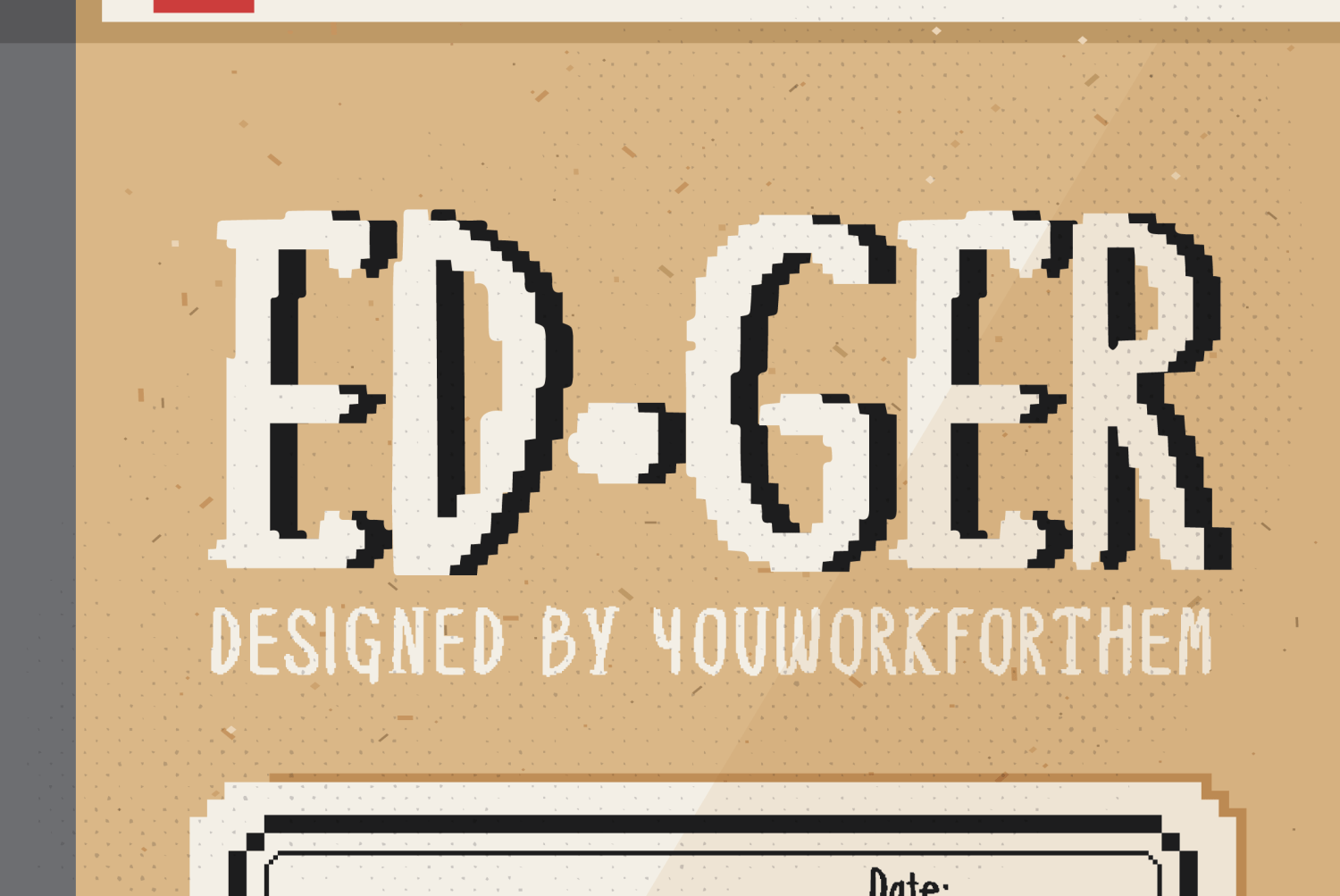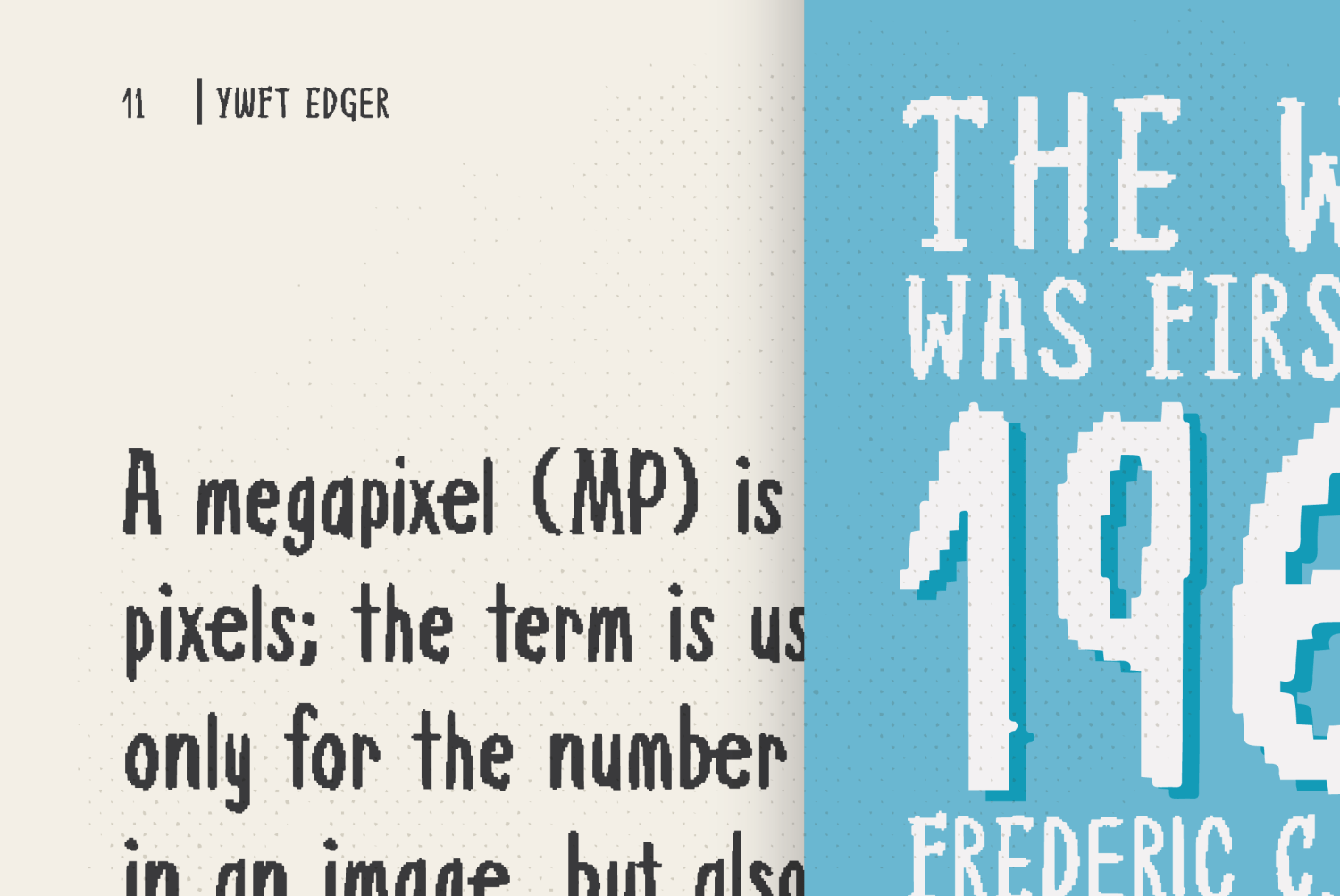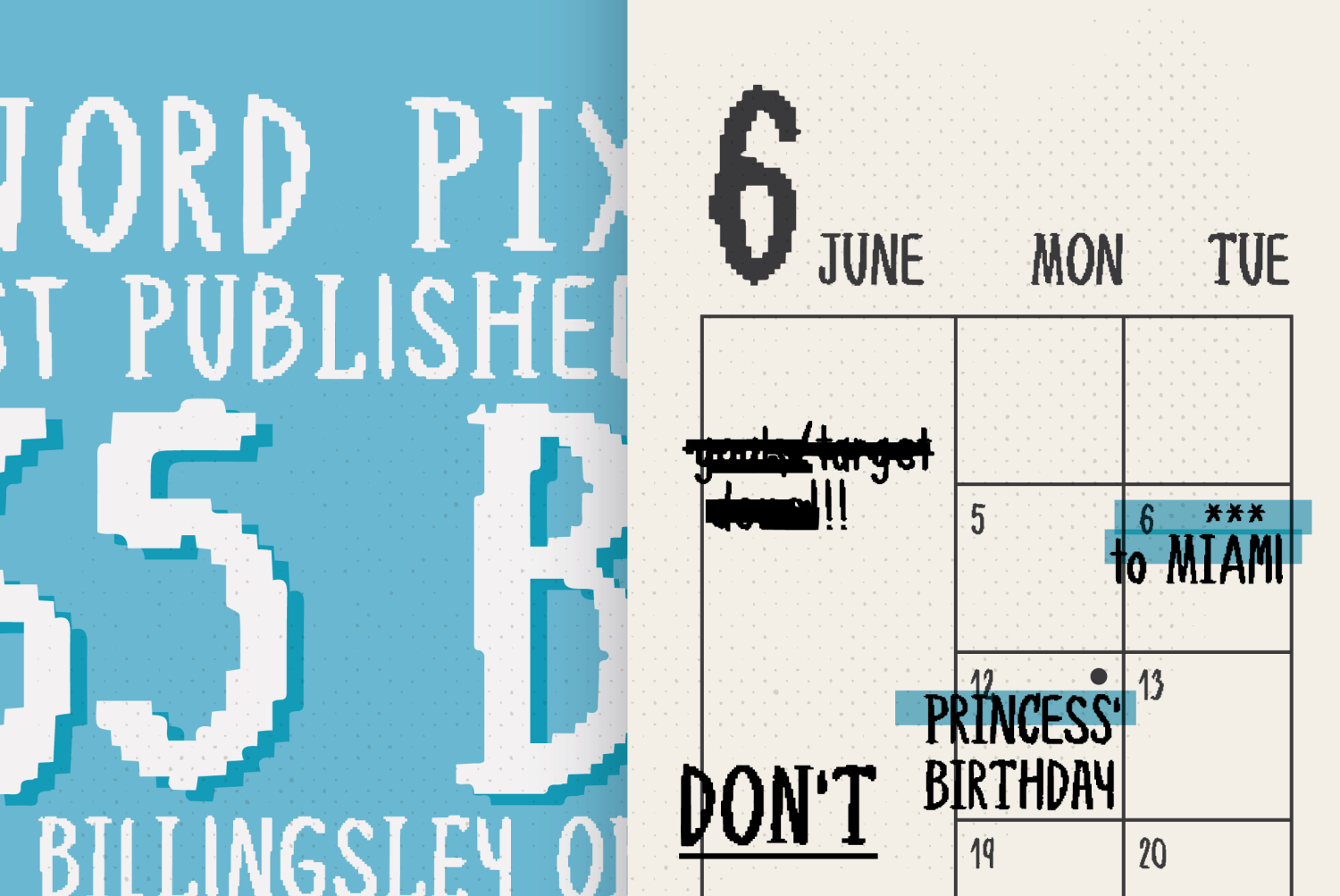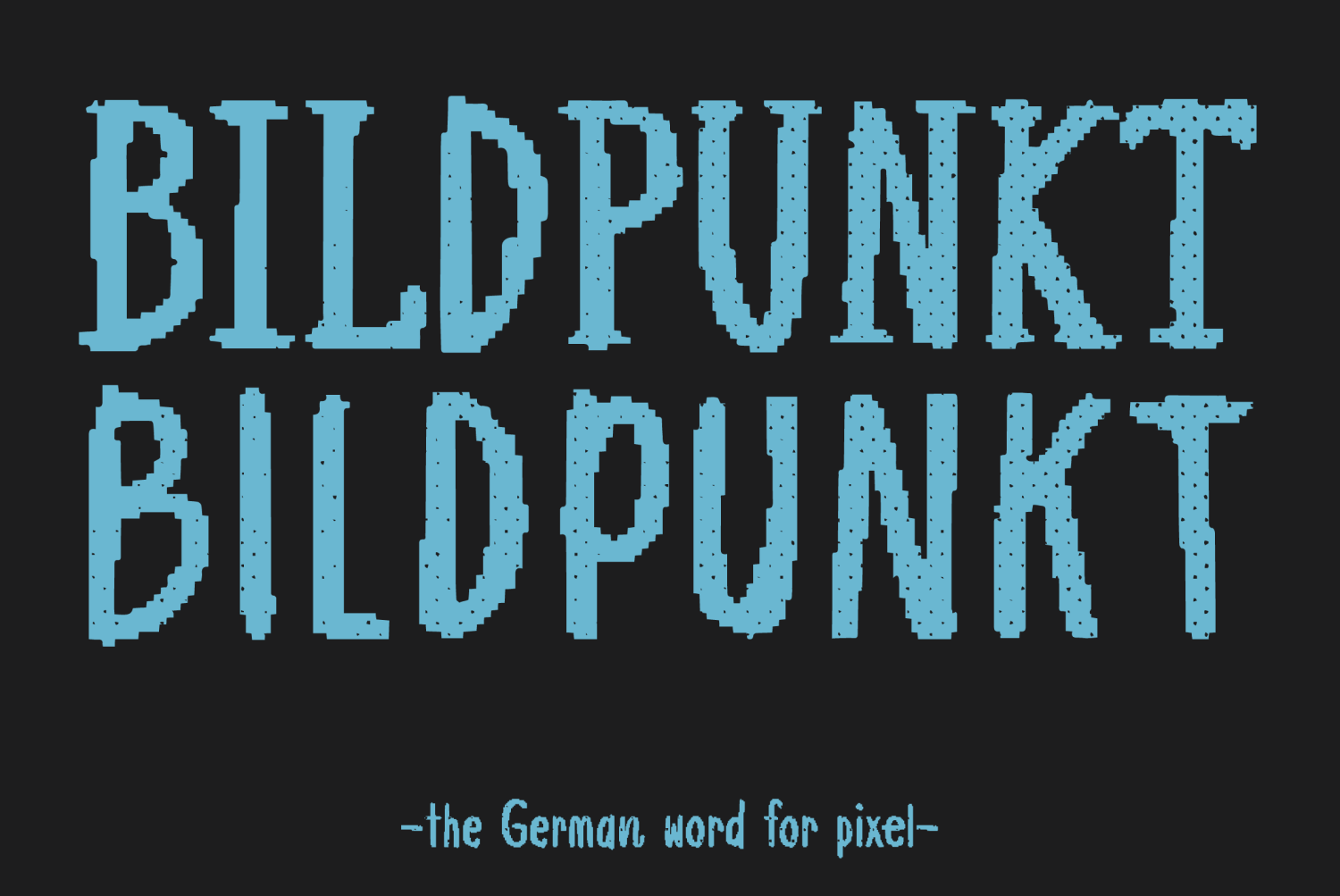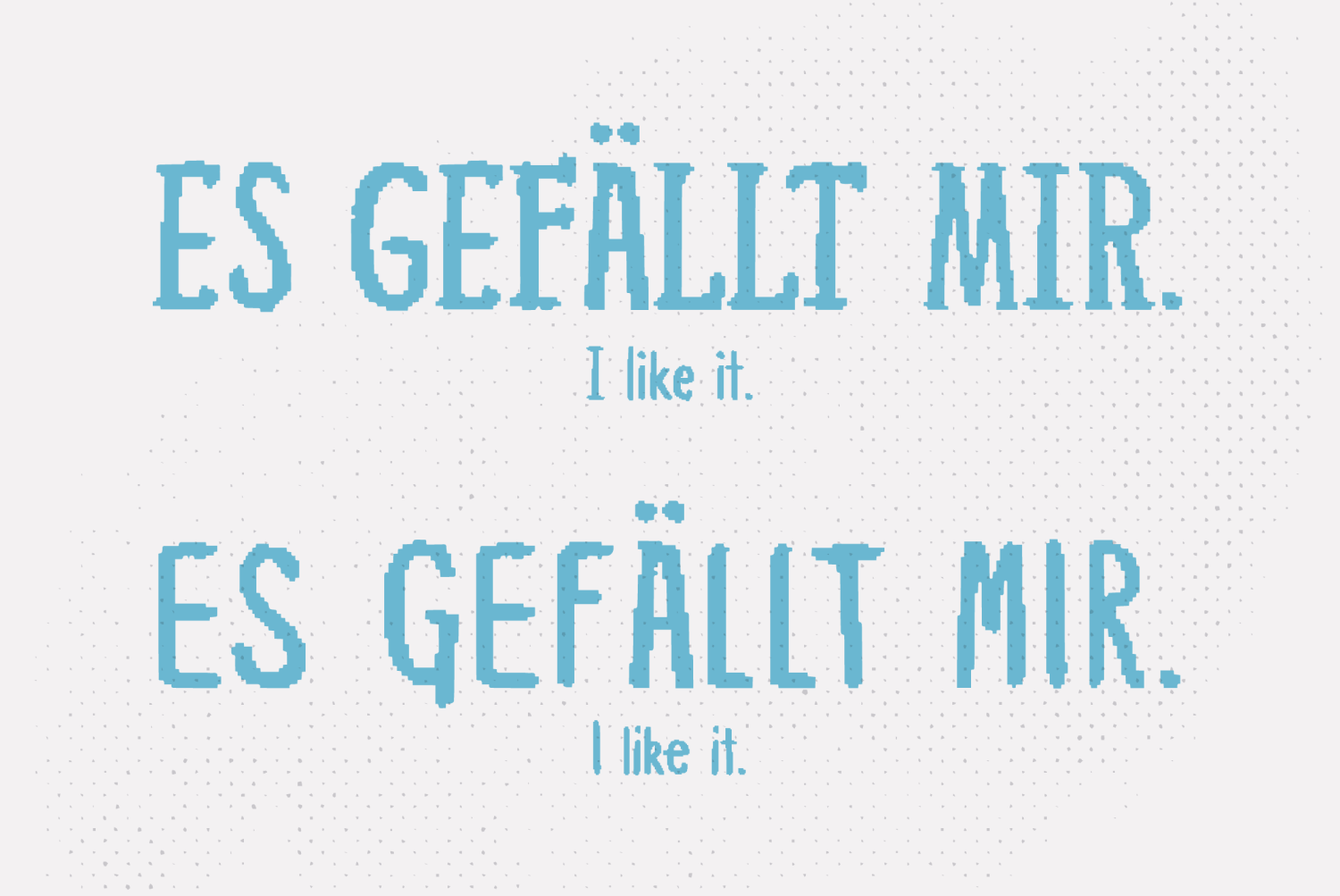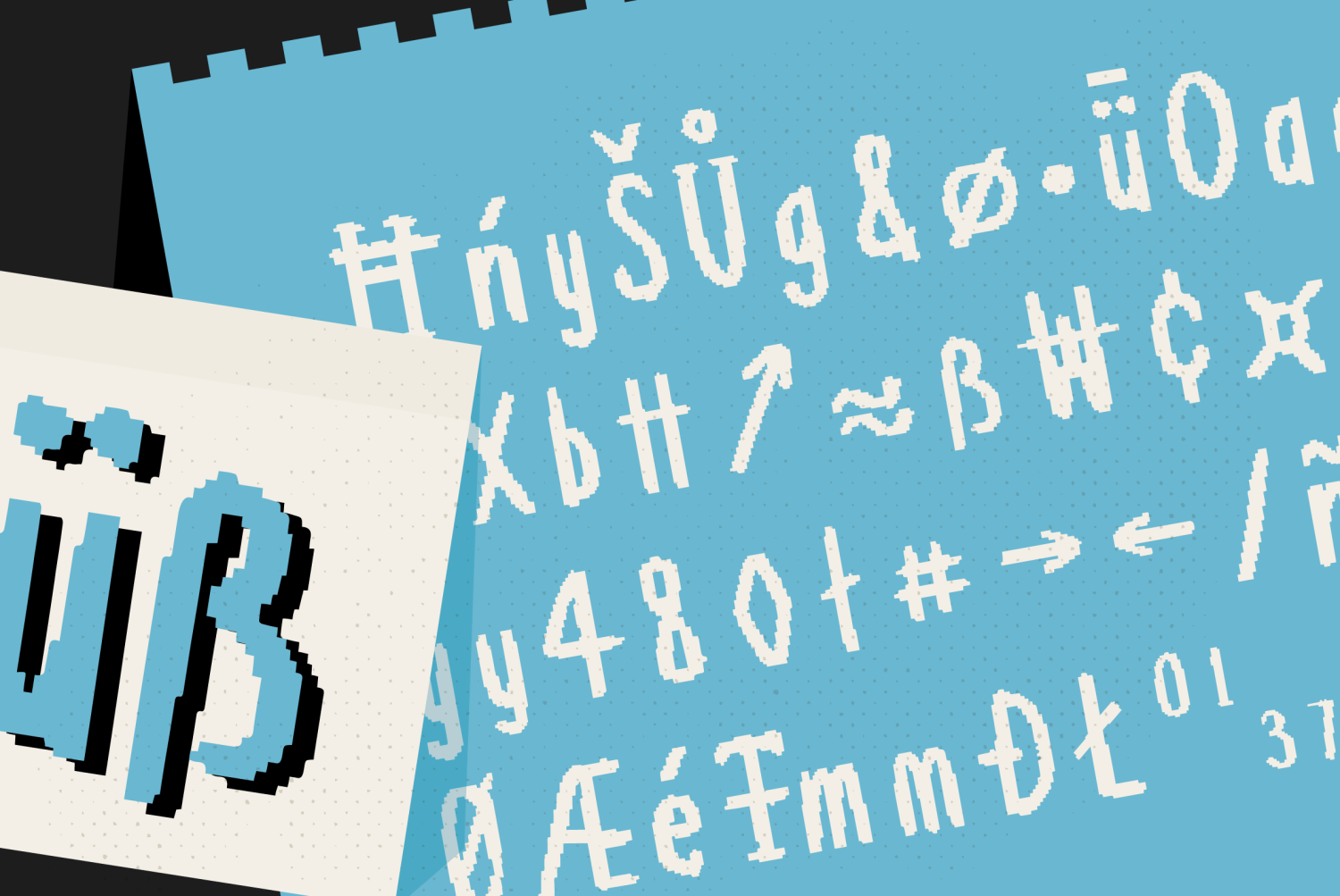
YWFT Edger
Font Family by YouWorkForThem
ALL YOUR BASE ARE BELONG TO US.
With a bold presentation and rugged outlines, Edger is a nostalgic celebration of 8-bit and 16-bit gaming. A punk attitude brimming with confidence is conveyed through the rawness of its abstract design, revealing layers of a personality that is youthful and energetic. Edger captures the iconic roots of video gaming and pairs them with contemporary upgrades, making it a suitable choice for posters, gaming and mobile apps, book covers, apparel, logos, and indie media branding.
Edger features contextual alternates, discretionary ligatures, numerators, denominators, fractions, subscripts, superscripts, and stylistic alternates for exceptional design versatility. Multilingual support, too!